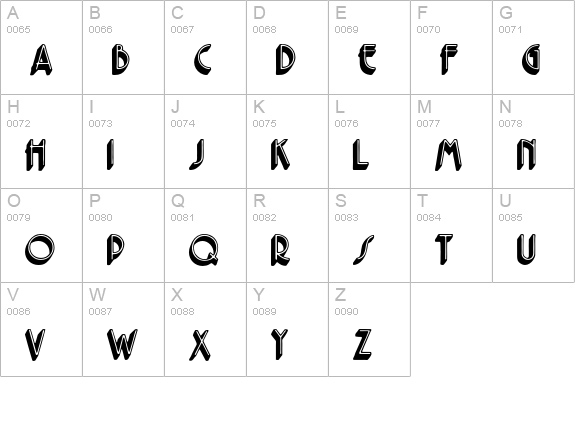
Orpheus Font Details
Orpheus font is a versatile and elegant typeface that beautifully combines traditional elements with a modern twist. Its graceful curves and sharp letterforms make it perfect for a wide range of design projects, from branding to editorial design. With its timeless appeal and sophisticated aesthetic, Orpheus font is sure to elevate any design it is used in. The best part? Orpheus font is available for free download at FontsMarket.com, making it accessible to designers and creatives looking to add a touch of sophistication to their work without breaking the bank. Whether you're working on a logo, a website, or a print project, Orpheus font is a fantastic choice that will surely make a lasting impression. Download it today and see for yourself the magic this font can bring to your designs.